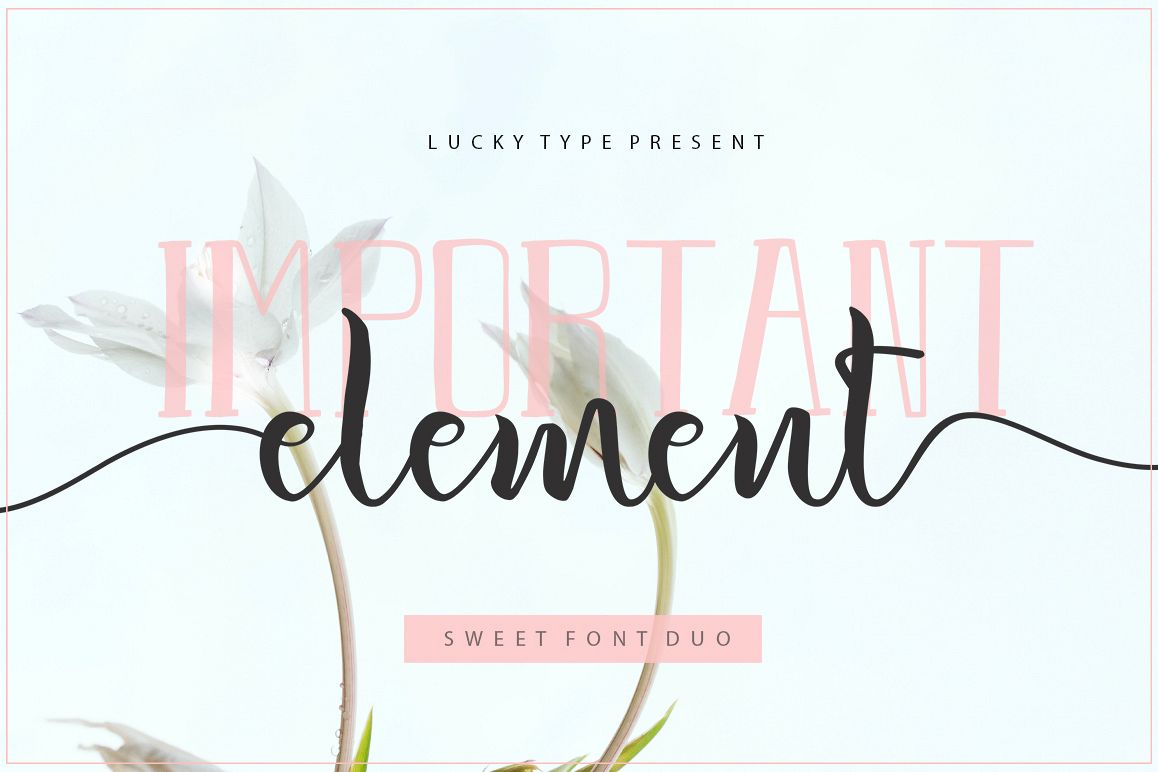
Important Element Script is a new modern script font duo with an
irregular baseline. Trendy and feminine style.Batter Dinner Script looks lovely on
wedding invitations, thank you cards, quotes, greeting cards, logos,
business cards and more. Perfect for using in ink or watercolour.
Including initial and terminal letters, alternates, ligatures and
multiple language support.